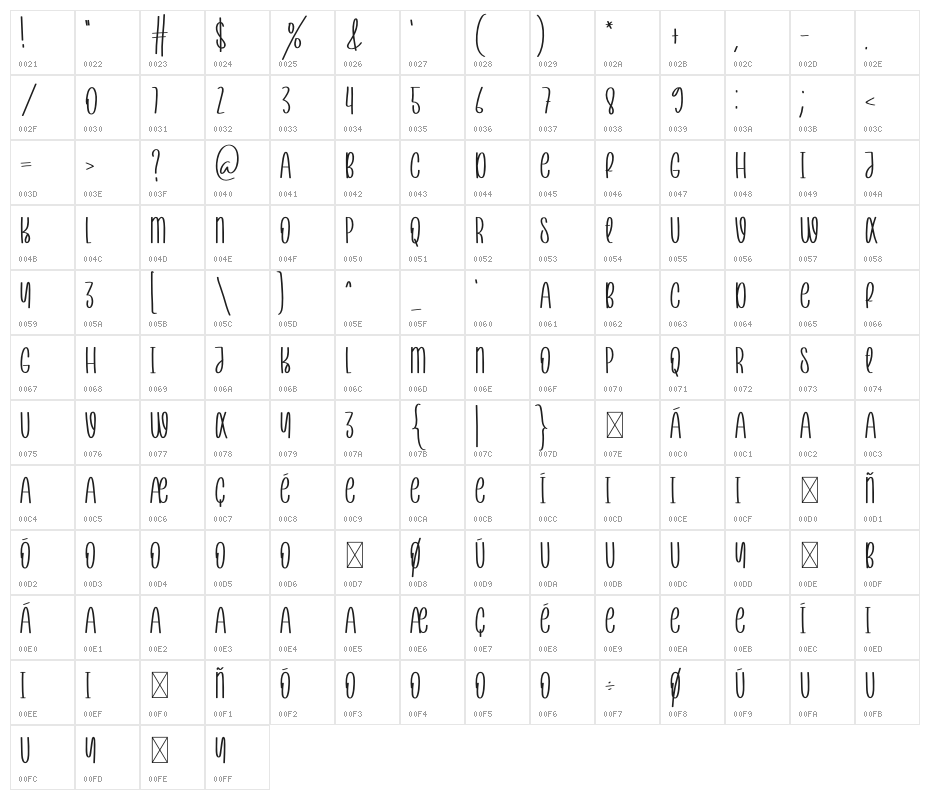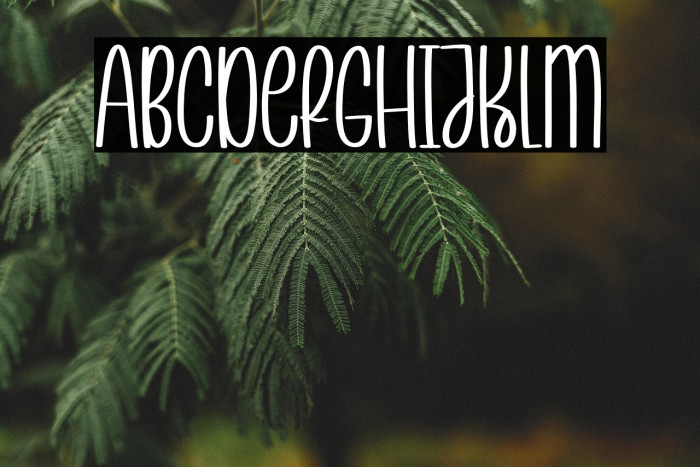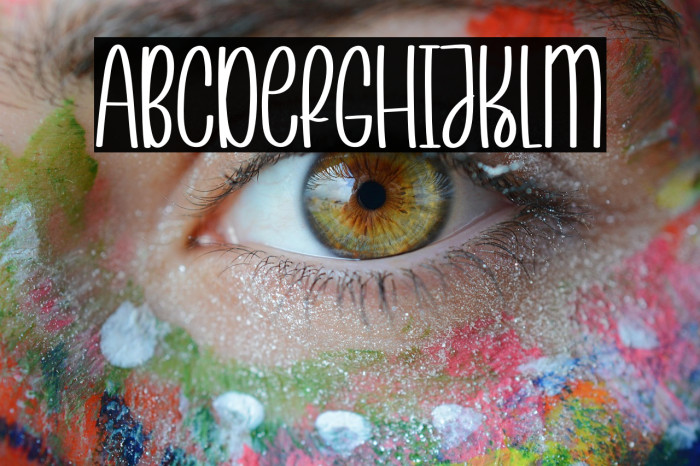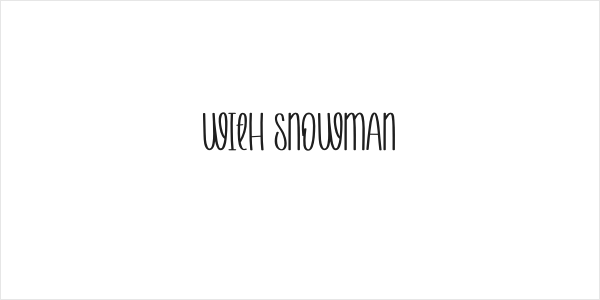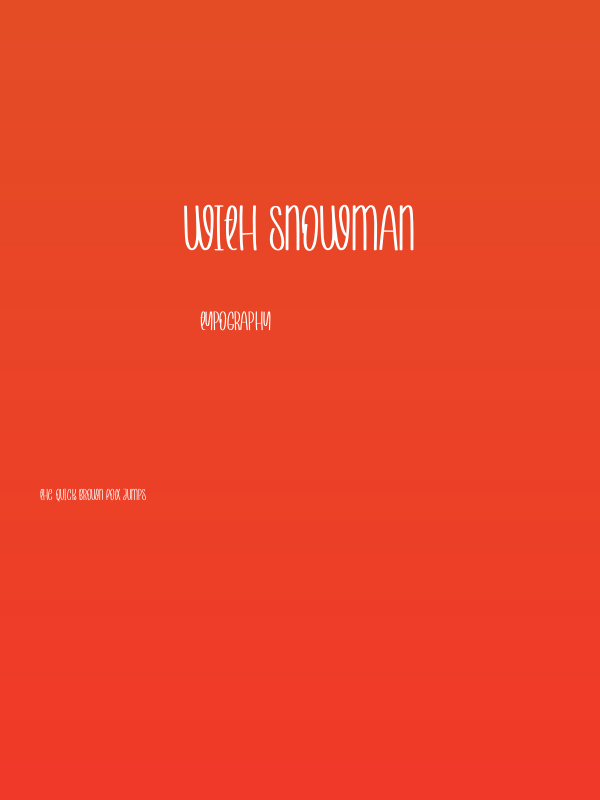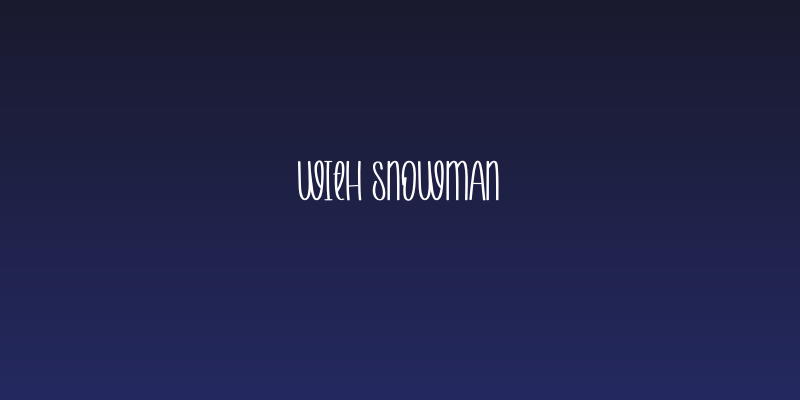
With Snowman Font
With Snowman Description
This font features a playful and whimsical design, characterized by its tall, narrow letters with a hand-drawn appearance. The strokes are smooth and consistent, giving it a friendly and approachable feel. The uppercase and lowercase letters maintain a uniform height, enhancing its cohesive look. The numbers and special characters follow the same style, ensuring versatility across different uses. Its unique style makes it stand out, while still being legible and clear.
| Proposed Projects | Ideal for children's books, greeting cards, playful branding, and creative projects. |